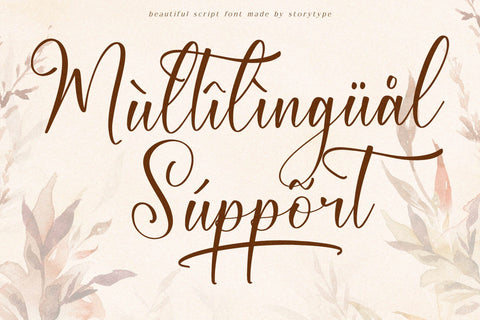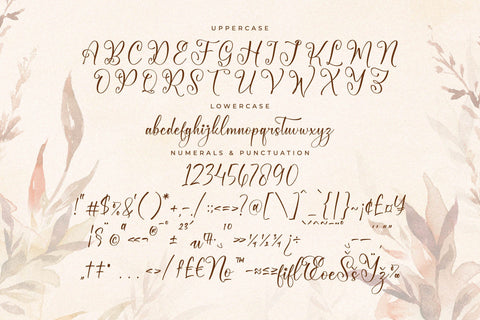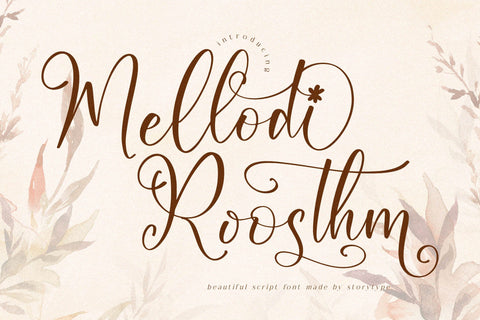
Mellodi Roosthm - Beautiful Script Font
Proudly present Mellodi Roosthm - Beautiful Script Font , created by Storytype,
A luxury script that has own unique style & modern look.